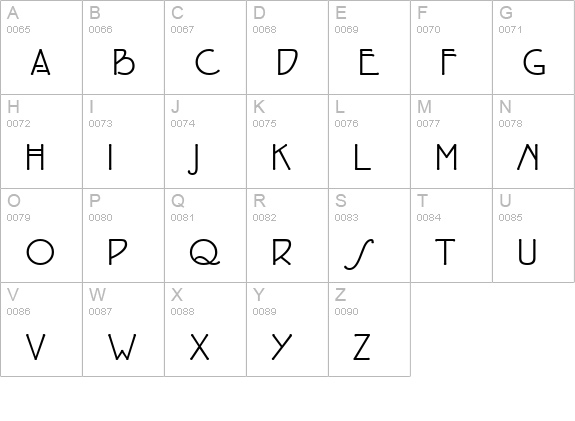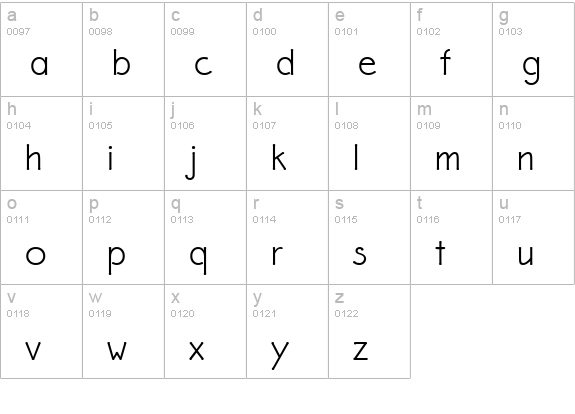
EaglefeatherFormalRegular Font Details
EaglefeatherFormalRegular font is a stunning typeface that exudes elegance and sophistication. Its sleek and refined design is perfect for formal occasions, making it a popular choice among designers and typographers alike. The carefully crafted letterforms showcase a harmonious balance between traditional and modern aesthetics, giving this font a timeless appeal. With its clean lines and sharp edges, EaglefeatherFormalRegular font commands attention and adds a touch of professionalism to any design project. Whether used for invitations, business cards, or logos, this font effortlessly elevates the visual appeal of your work. One of the best things about EaglefeatherFormalRegular font is that it is freely available to download at FontsMarket.com. This means that you can easily access this exquisite typeface without having to spend a dime. Its availability for free ensures that designers of all backgrounds can utilize its beauty and versatility in their creative endeavors. So, if you're looking for a font that combines sophistication with accessibility, look no further than EaglefeatherFormalRegular font. Download it for free today at FontsMarket.com and let your designs soar to new heights.